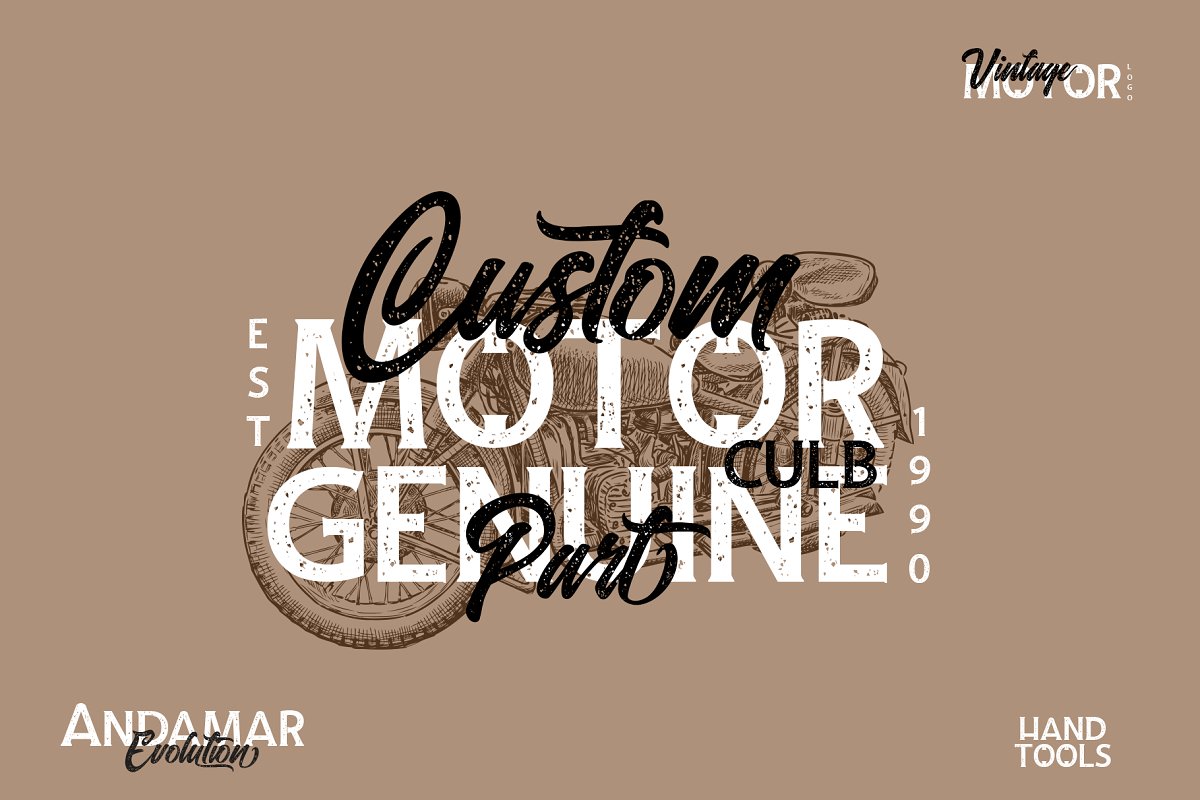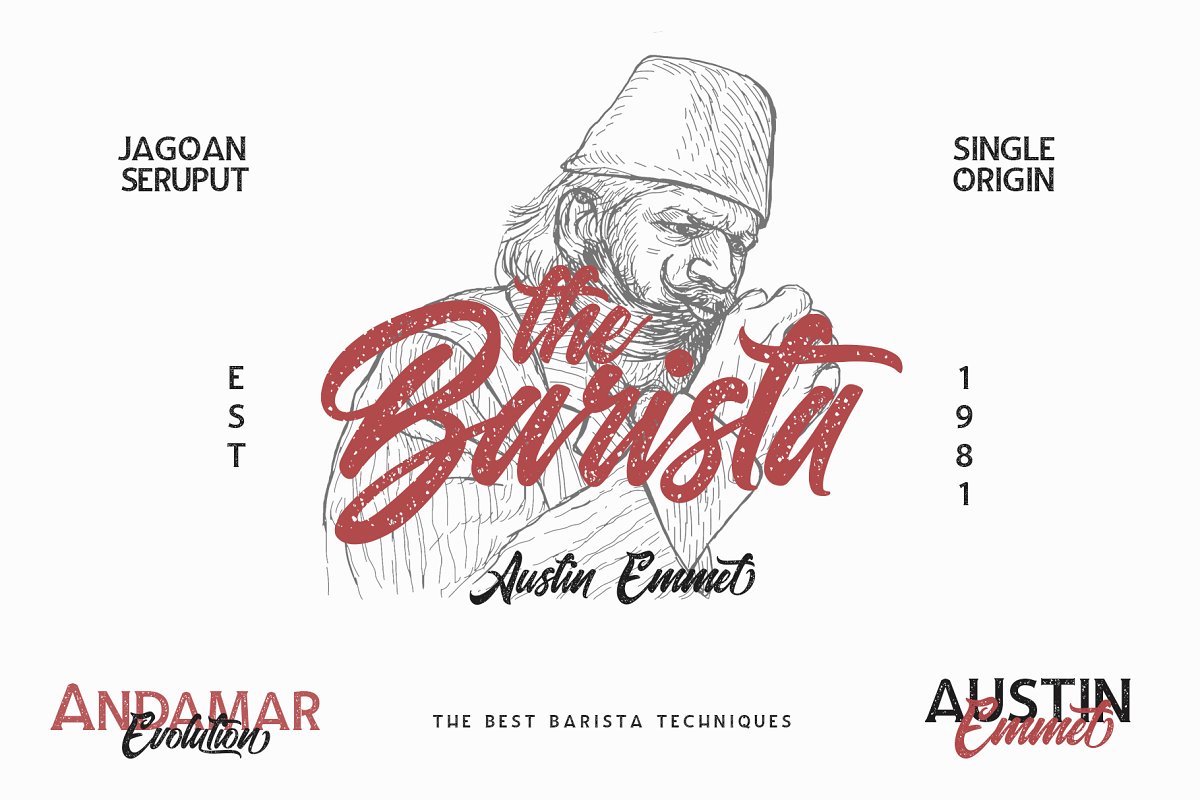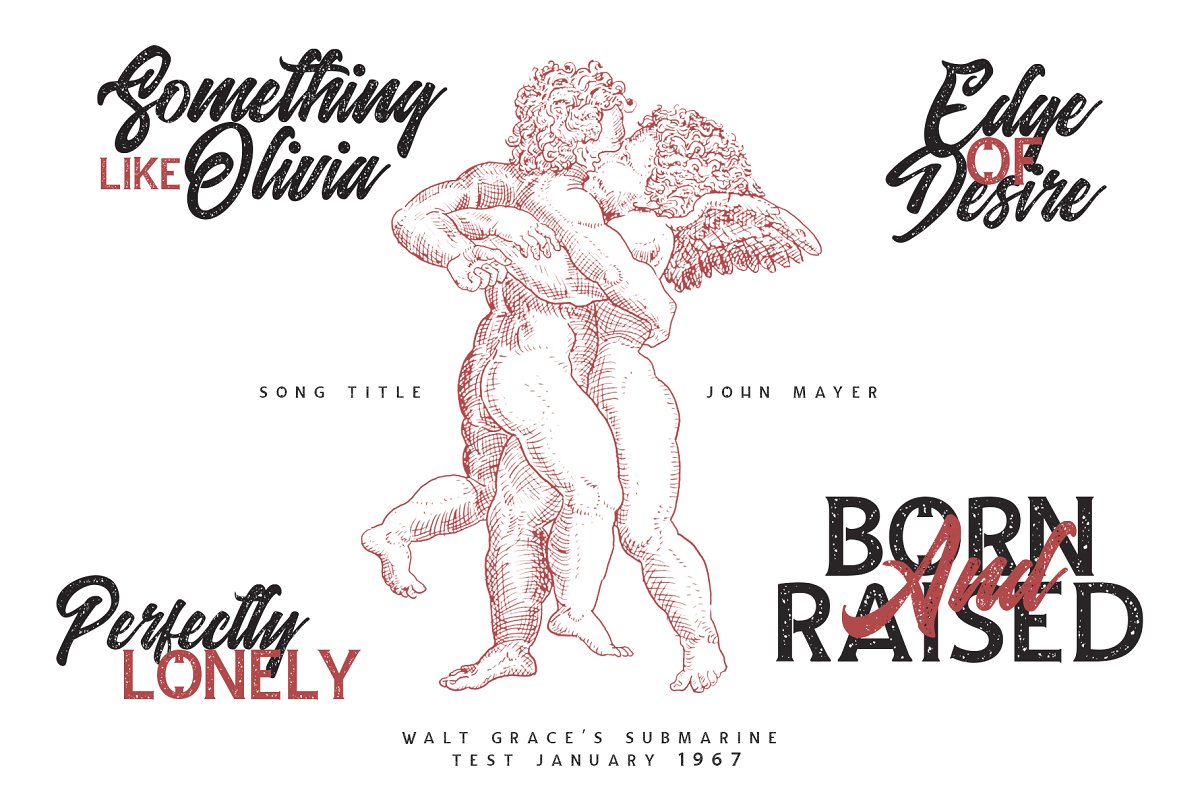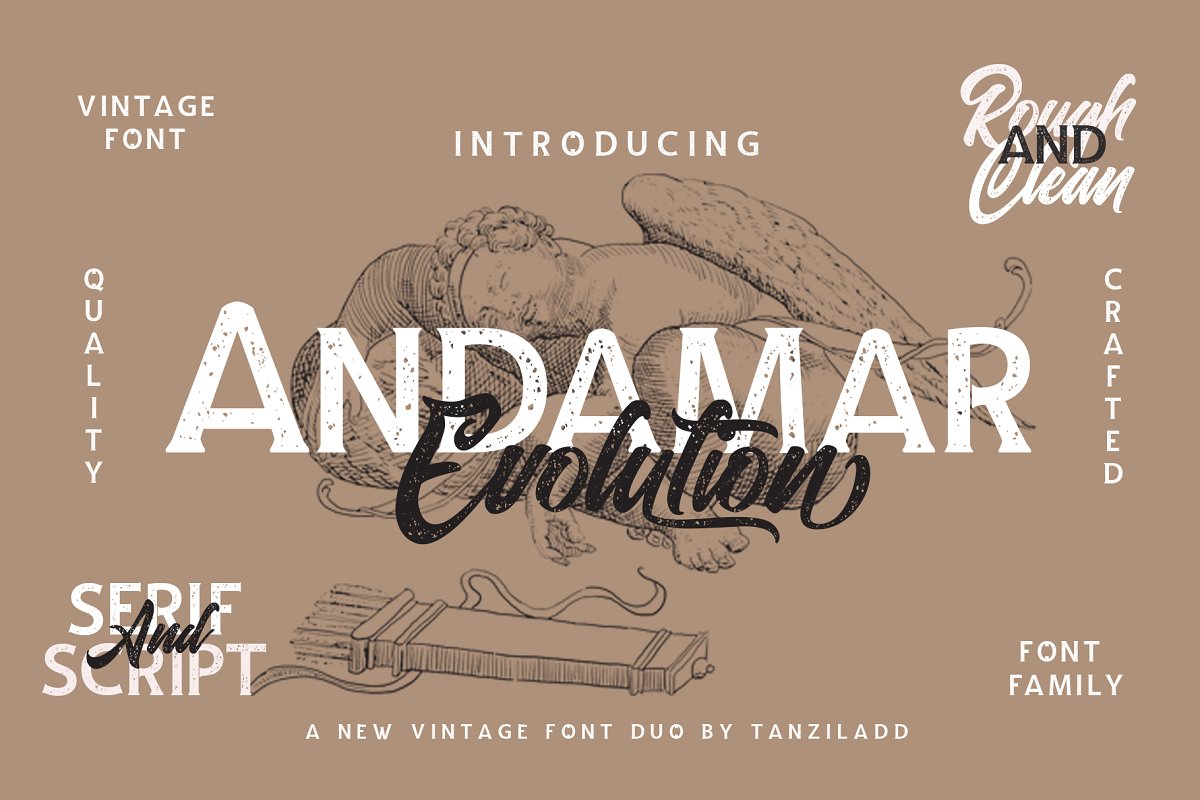
Andamar Font Family
Introducing Andamar Typeface. It is designed by Tanziladd, this is a premium font, are sold on creativemarket, but it was great, it is free today for download. Andamar Font Family Is a packaging font family designed to become a favorite treat, As we go through the design and development stage, we was really drawn to how round and thick it was turning out and I liked this look – it makes it a vintage font with a high level of legibility.